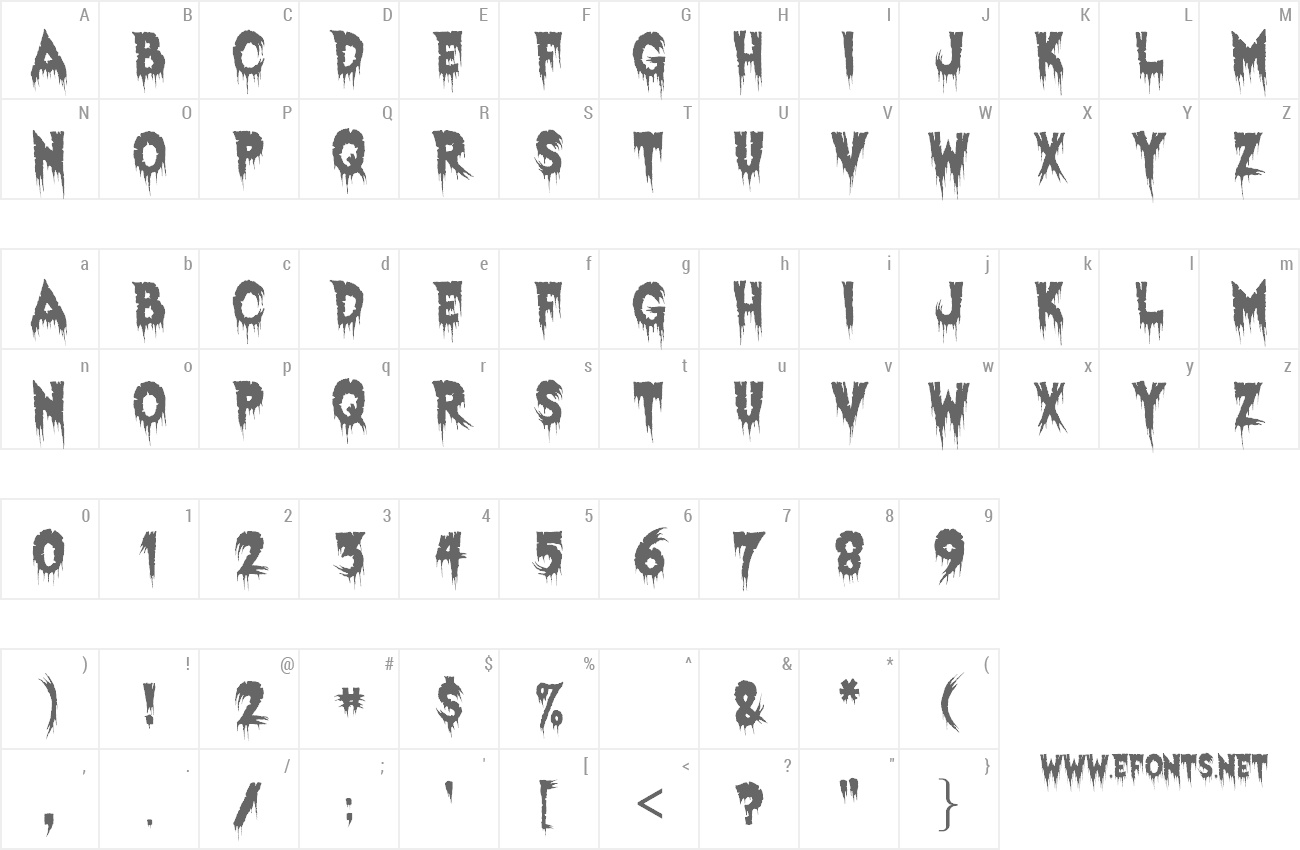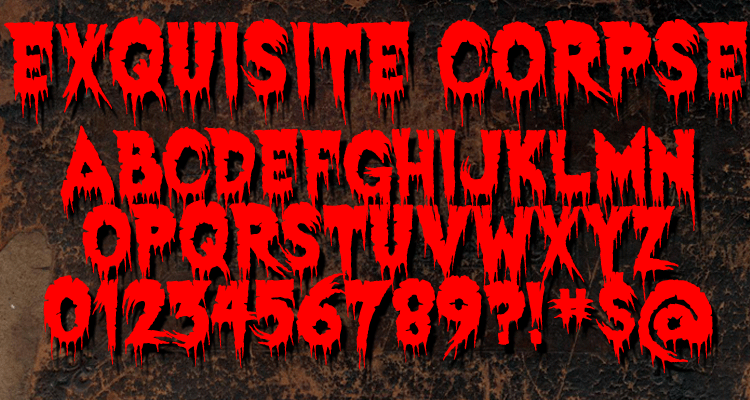
| Font name: | Exquisite Corpse |
| Author: | Sinister Fonts |
| Note by Sinister Fonts | |
| Created 2010, hand-lettered in response to classic, creepy fonts like Creepshow. |